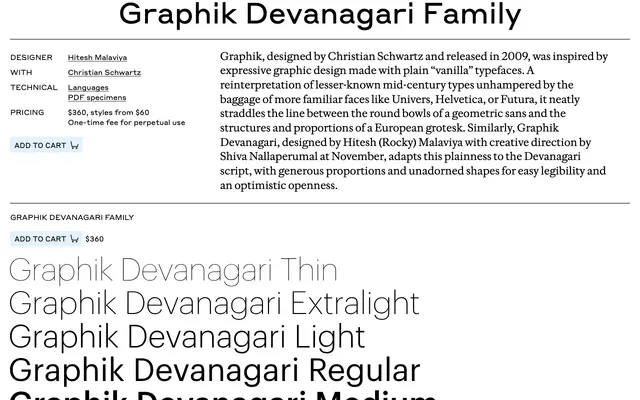
Graphik Devanagari
Commercial Type · Hitesh Malaviya · 2021
Hitesh Malaviya's Devanagari companion to Graphik, open and optimistic for editorial and brand work.
A Devanagari companion to Graphik by Hitesh (Rocky) Malaviya, with creative direction from Shiva Nallaperumal at November. The adaptation extends Graphik's plain, vanilla character into Devanagari, using generous proportions and unadorned shapes for clear legibility and an optimistic openness. Nine weights from Thin to Super sit alongside the Latin master, making the pair useful for publications, identities and product systems working across Hindi, Marathi and other Devanagari languages.
Commercial Type frame Graphik Devanagari as Hitesh Malaviya's adaptation of the Graphik concept to Devanagari, with creative direction by Shiva Nallaperumal at November, using generous proportions and unadorned shapes for an open, optimistic feel.